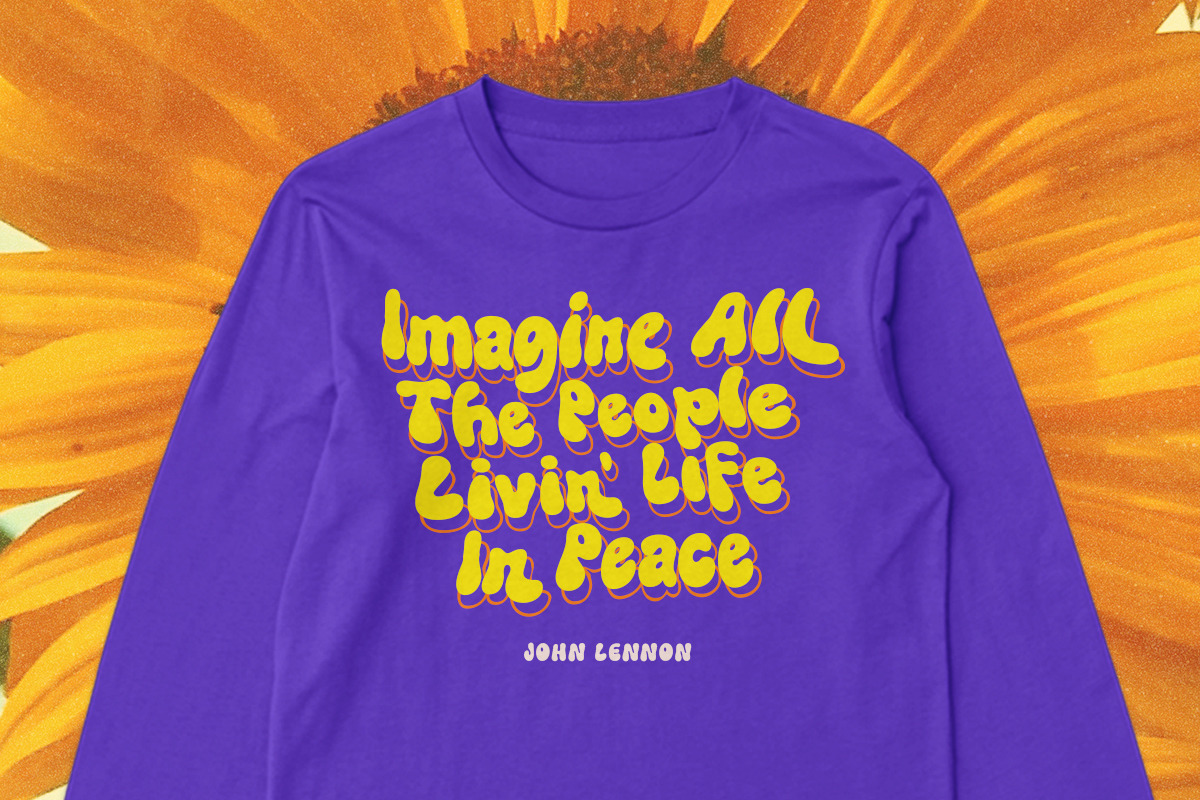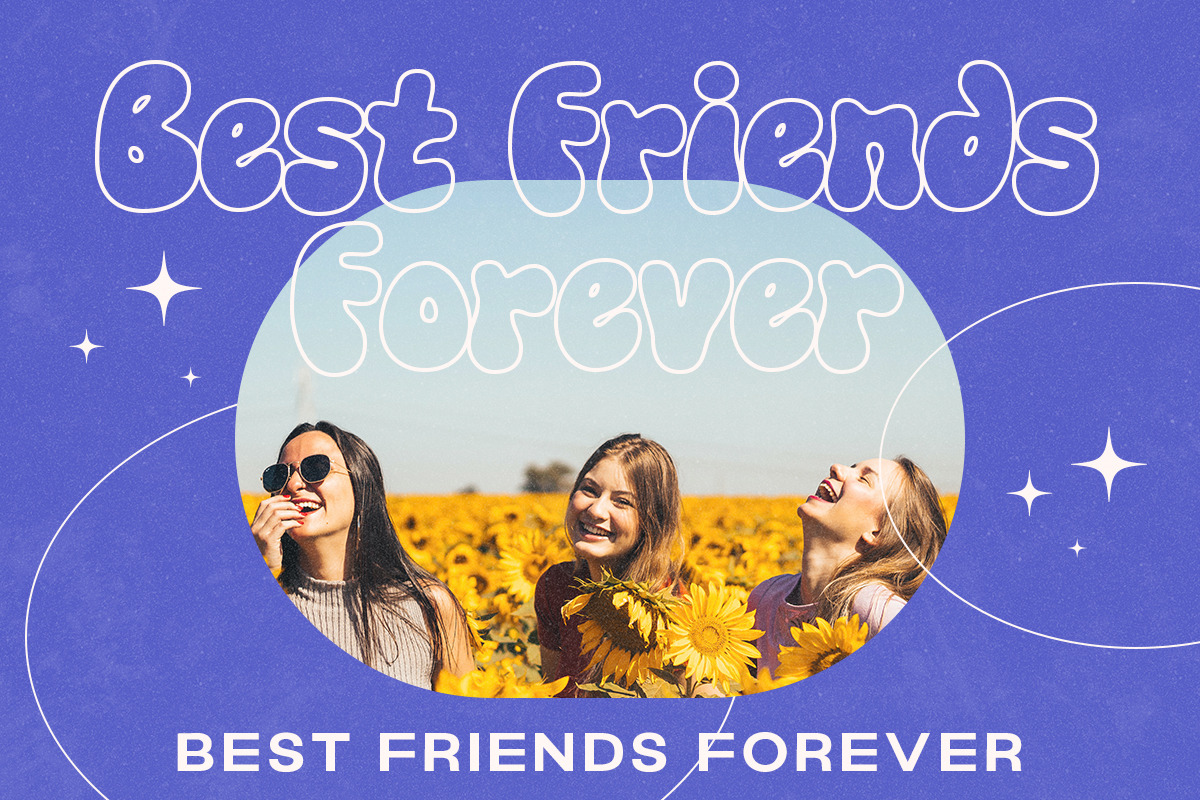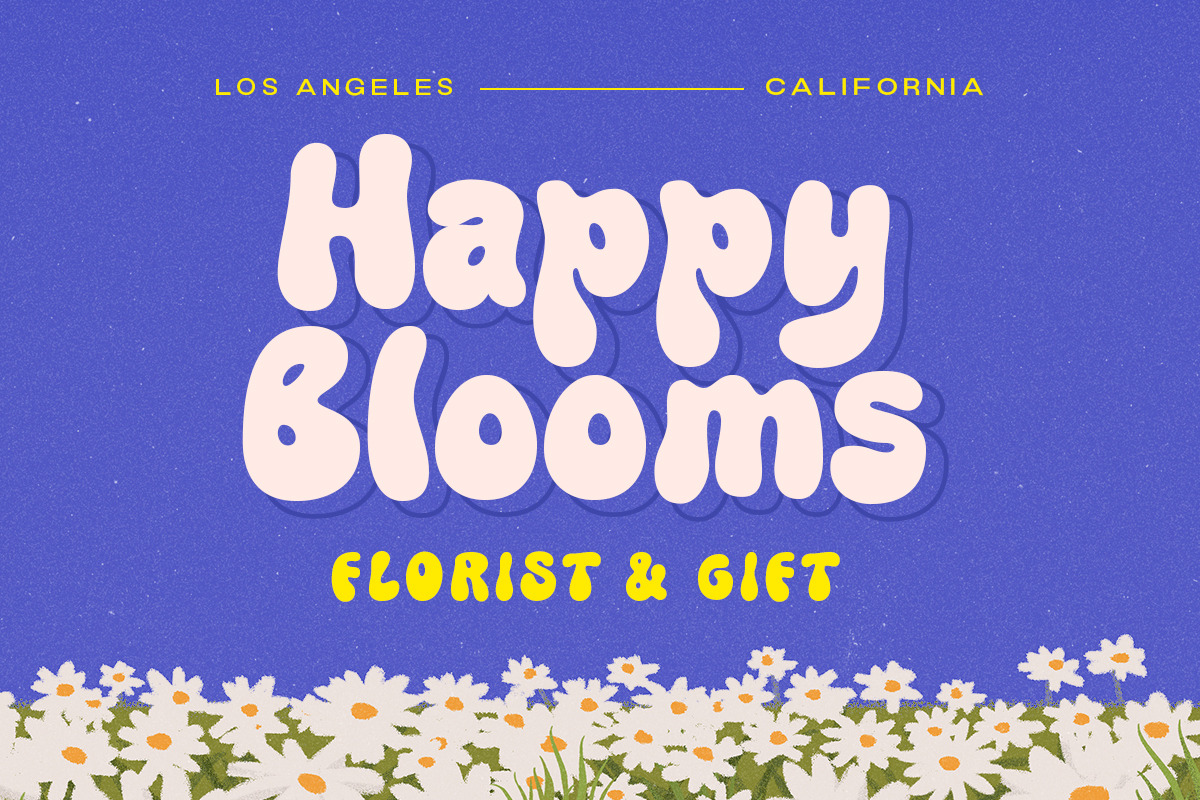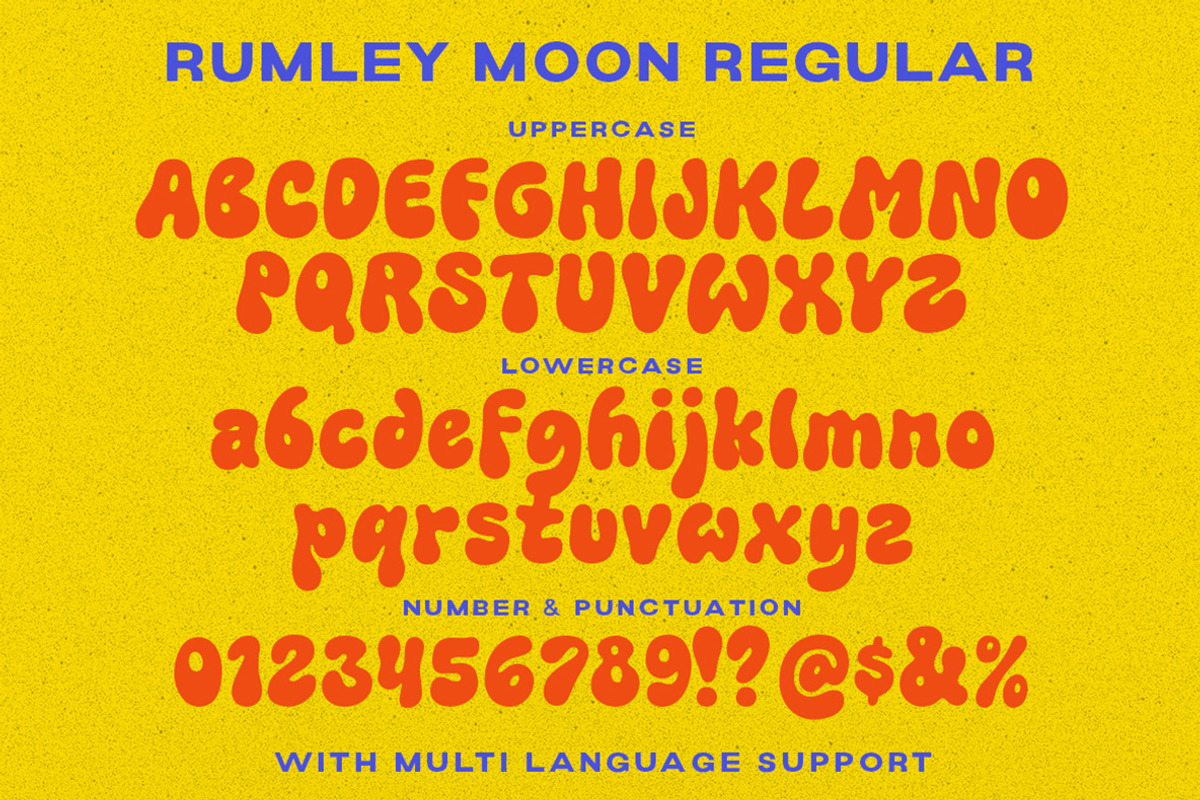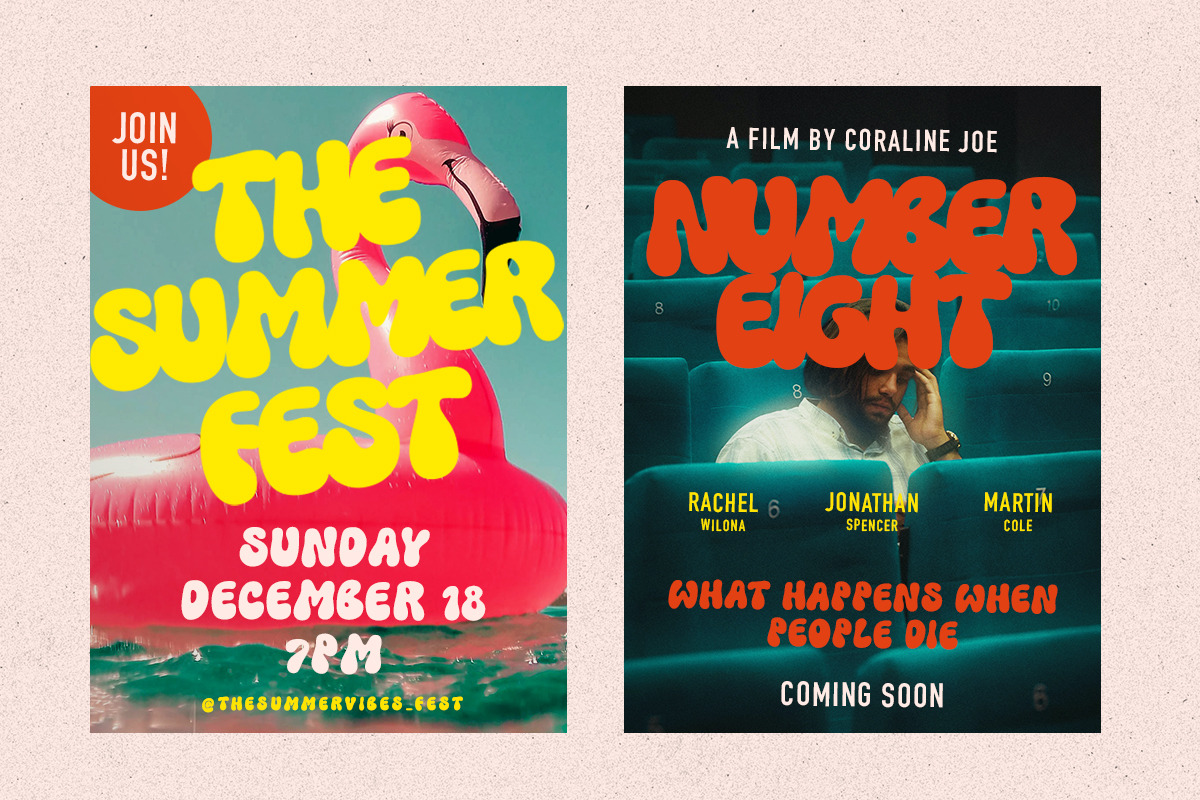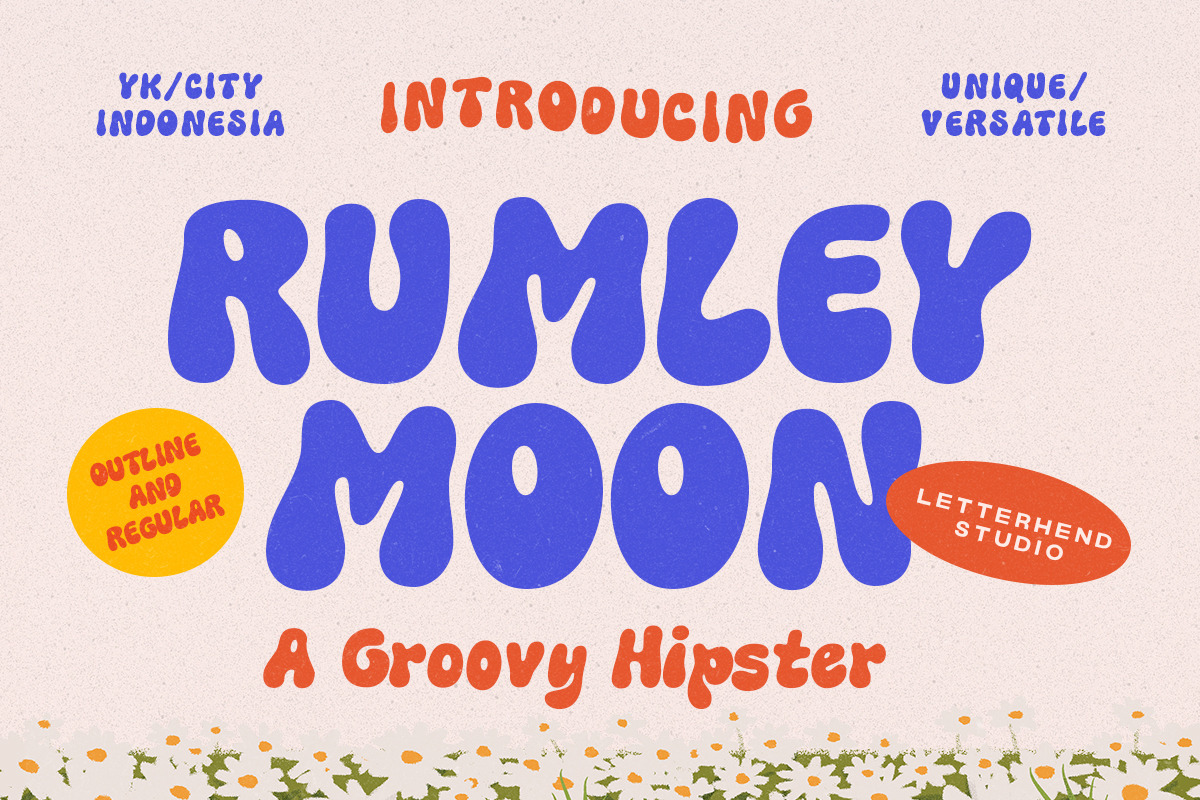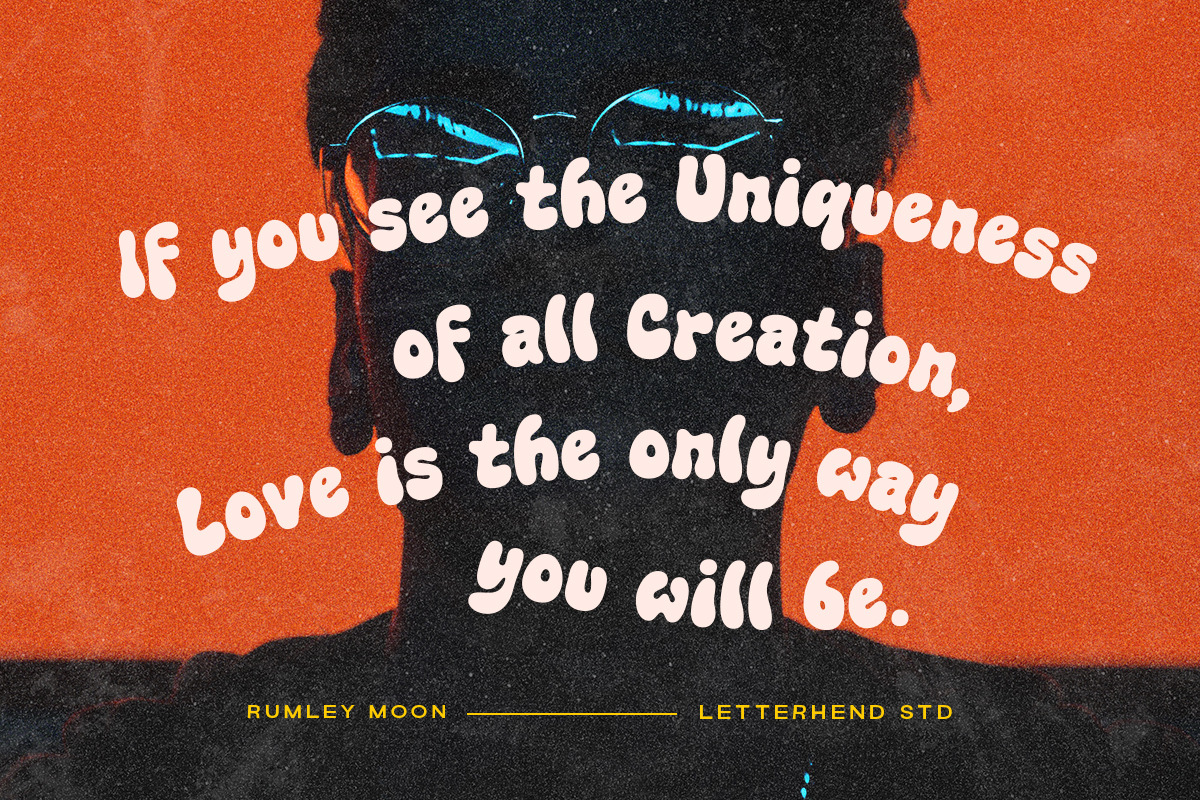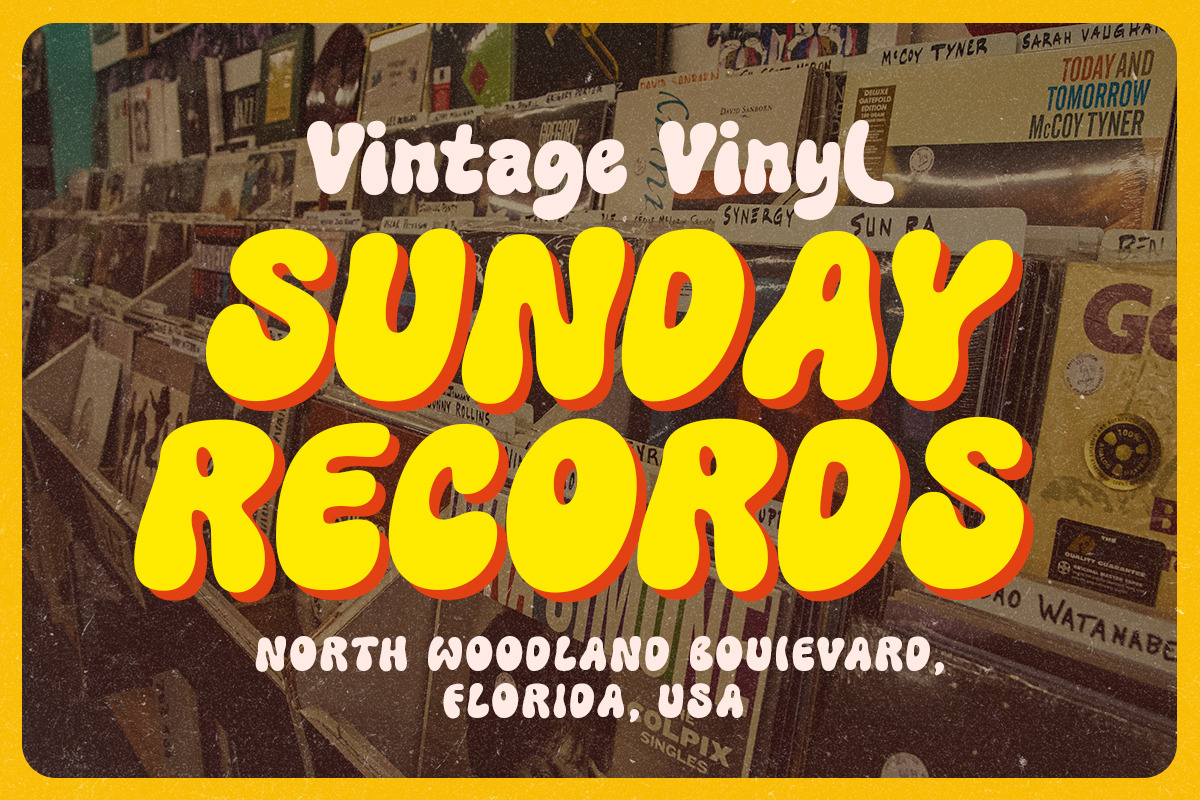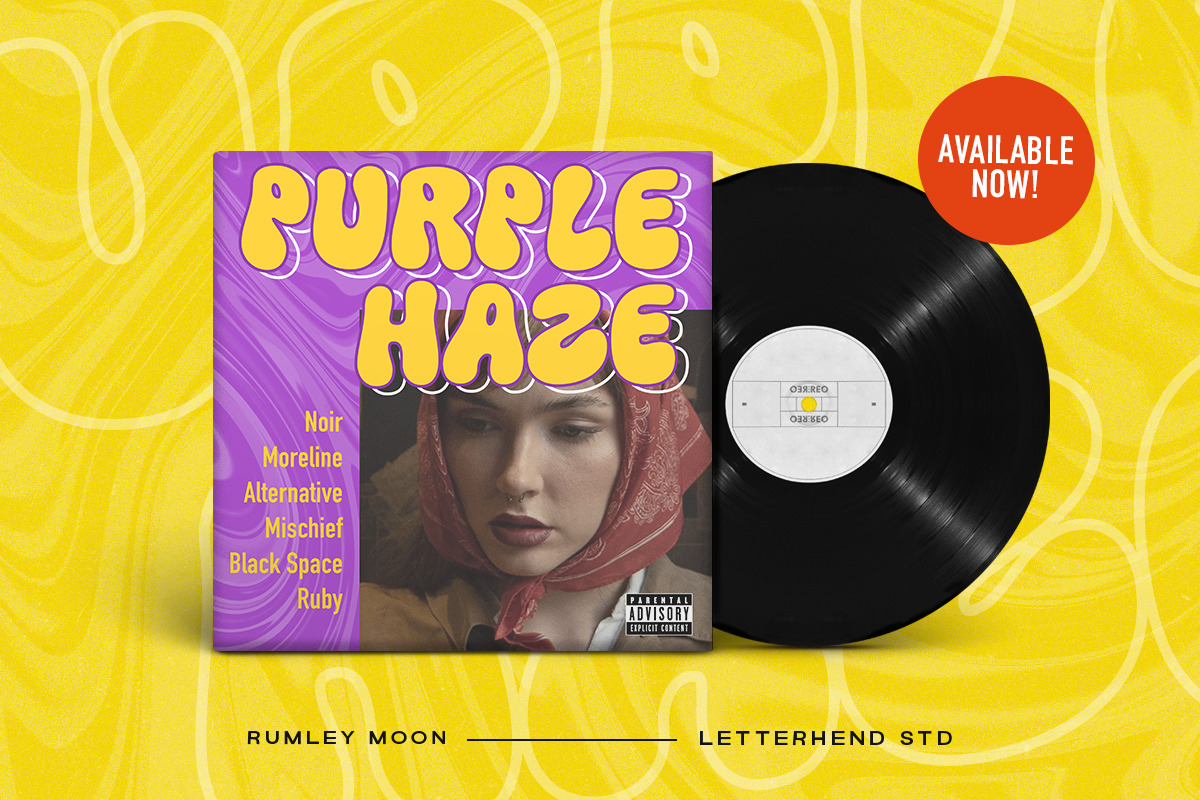
Rumley Moon - Groovy Hipster Font
Rumley Moon is a versatile bold font with unique letterform. This font will bring you back to retro feel.This font perfectly made to be applied especially in logo, and the other various formal forms such as invitations, labels, logos, magazines, books, greeting / wedding cards, packaging, fashion, make up, stationery, novels, labels or any type of advertising purpose.
- Regular & outline version